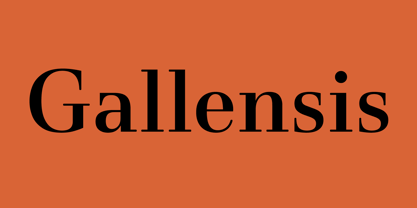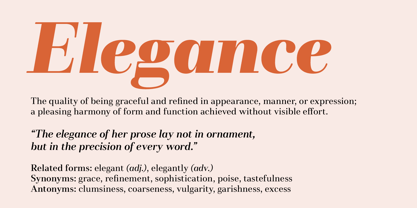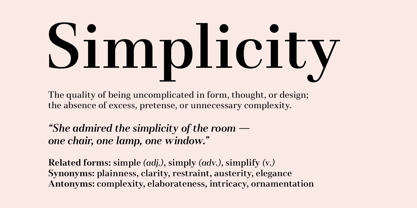
Gallensis
by Schriftlabor
The Gallensis Font Family was designed by Peter Renn and published by Schriftlabor. Gallensis contains 36 styles and family package options. More about this family
The Swiss Didone Gallensis comes in three optical sizes in total: Text, Title, and Grande. Gallensis Text is optimised for small sizes, making it ideal for book text and extended reading while still preserving clarity. Gallensis Title is the perfect fit for sophisticated short text setting, whether for glossy magazines or premium branding. Or, take it another notch higher with the ultra-contrast Gallensis Grande, best for when you need that extra touch of elegance in large text setting.
Designed by renowned Swiss typographer and educator Peter Renn, with the help of Marc Weymann, London, and named after the city of St. Gallen, where Renn learned and taught typography, Gallensis embodies his design philosophy of merging perceived opposites, like content versus style, or information versus entertainment. As such, the Gallensis triple family is the perfect harmonious blend of the straightforward clarity of Swiss design and the expressive sophistication of Didone typefaces.
Gallensis includes small caps, multiple figure sets, and a complete Latin character set, including the German uppercase sharp S (ẞ).